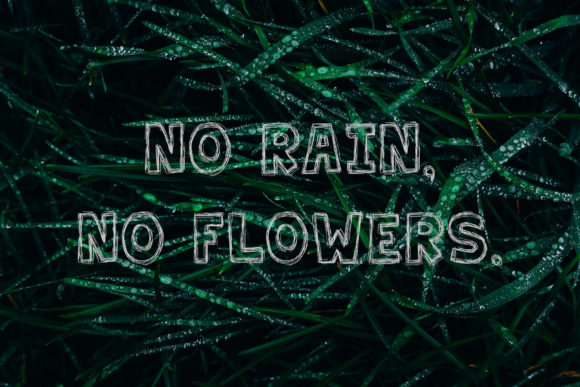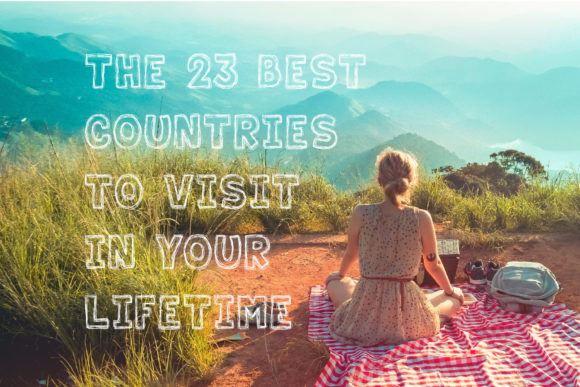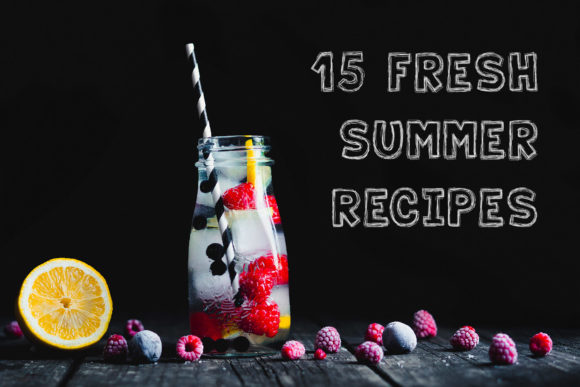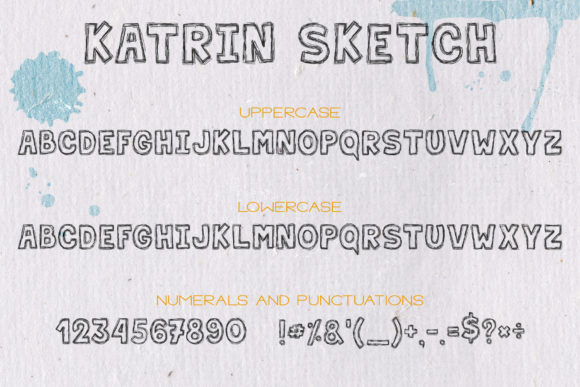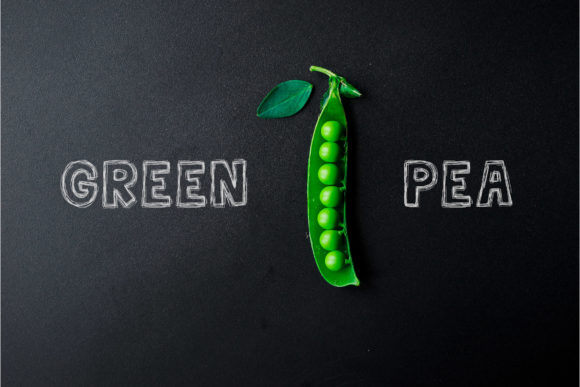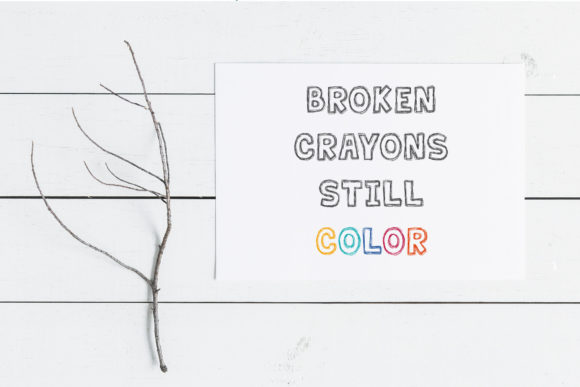
Introduction to Katrin Sketch Font Font
Fonts play a crucial role in design, and the Katrin Sketch Font font is a typeface that brings both character and versatility to any project. Whether you’re working on a branding project, a website, or a print design, the Katrin Sketch Font font offers a unique style that can elevate your work.
Katrin Sketch is a fun and cute display font with a light feel.
It will add a whimsical charm to any design project .
Key Features of Katrin Sketch Font Font
Why Choose Katrin Sketch Font Font?
The Katrin Sketch Font font is more than just a typeface – it’s a design tool that helps you communicate your message with style and clarity. Its unique character set and versatile design make it suitable for a wide range of applications, from elegant invitations to bold headlines.
With its carefully crafted letterforms and balanced proportions, the Katrin Sketch Font font ensures readability and visual appeal across all mediums.
What makes Katrin Sketch Font font special?
The Katrin Sketch Font font stands out with its unique design, exceptional readability, and versatility across various design applications.